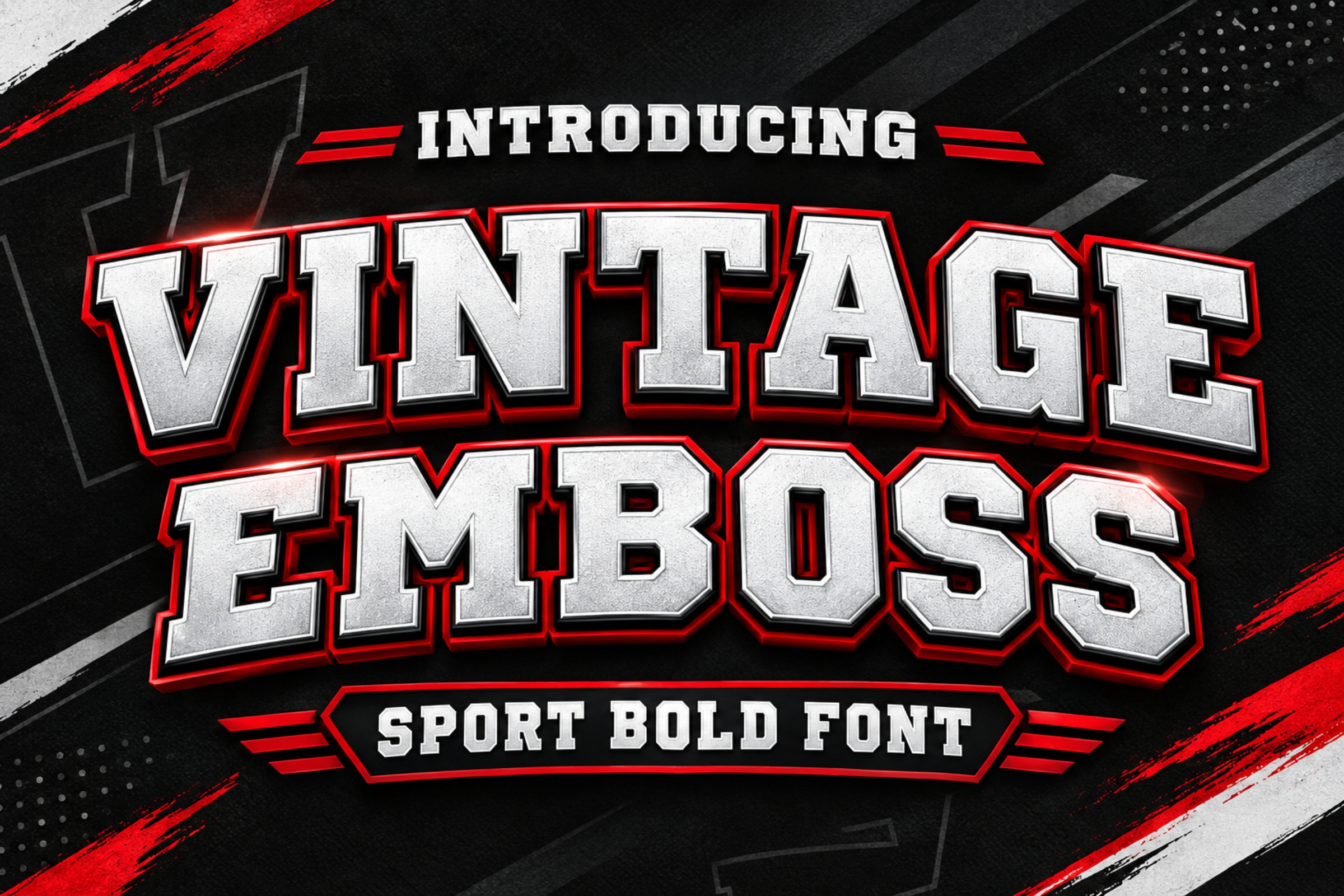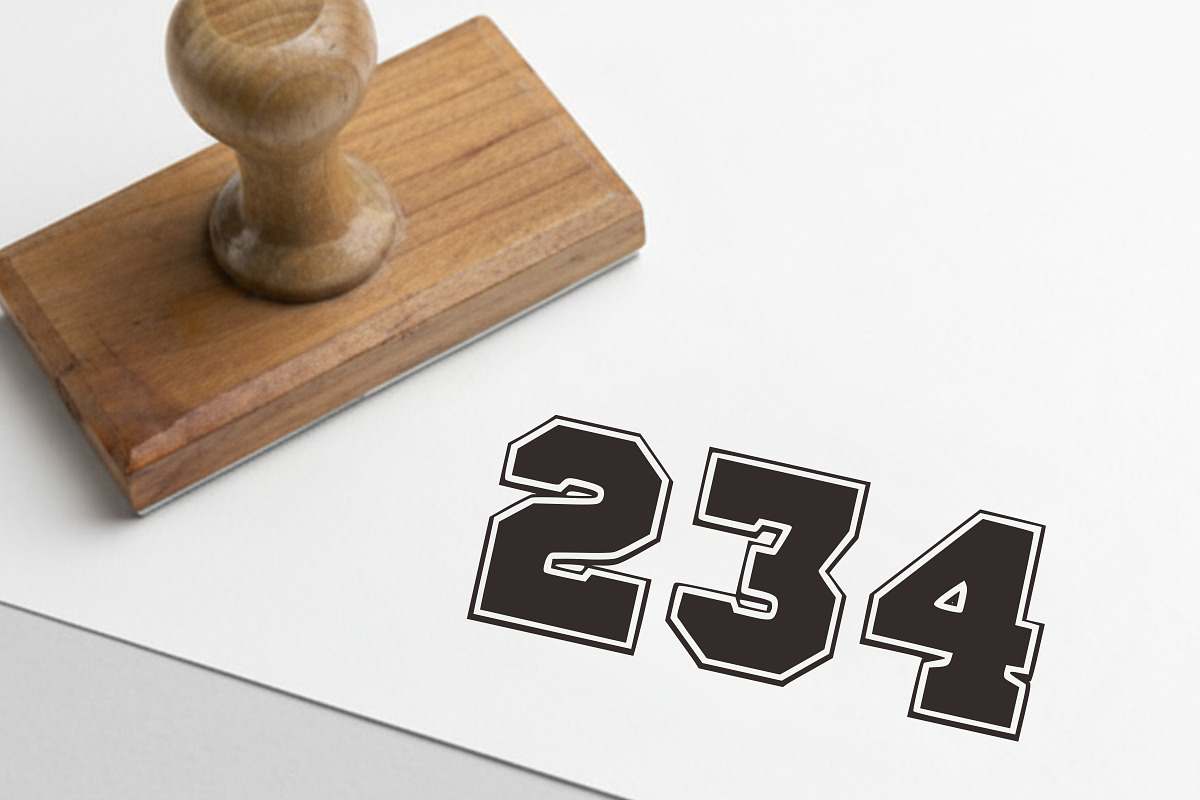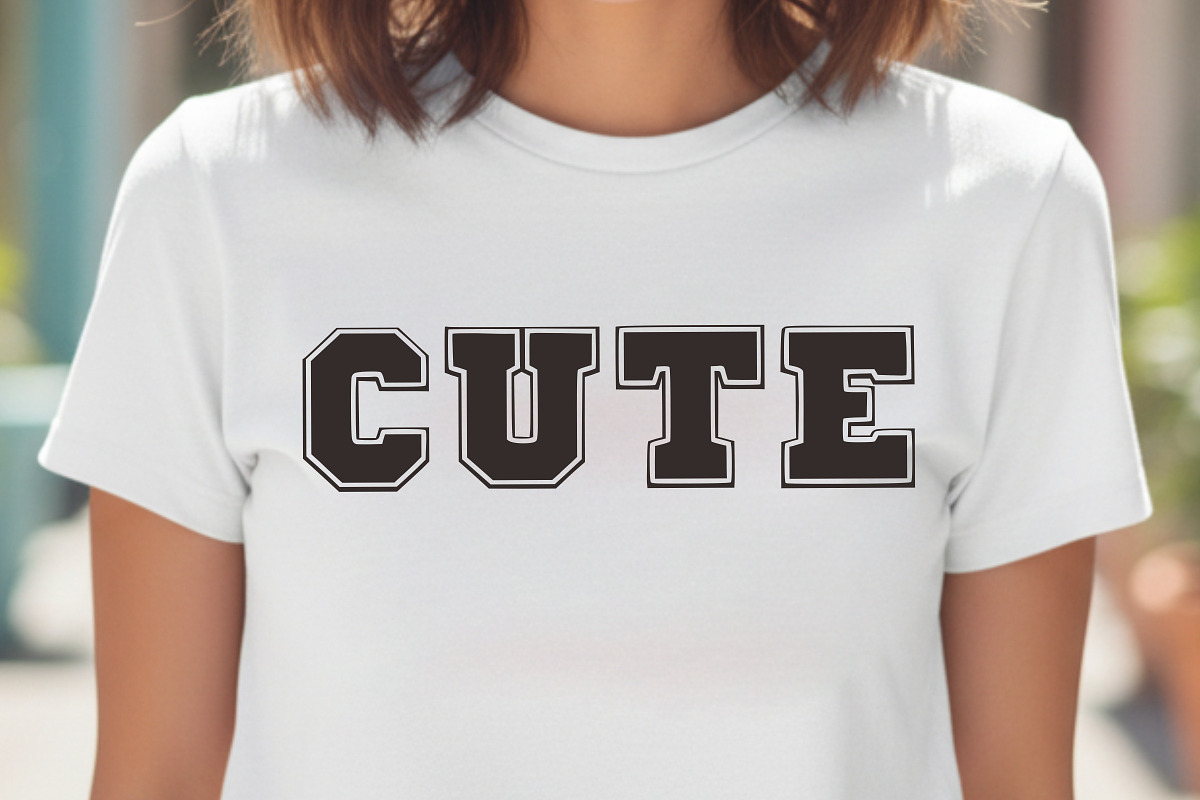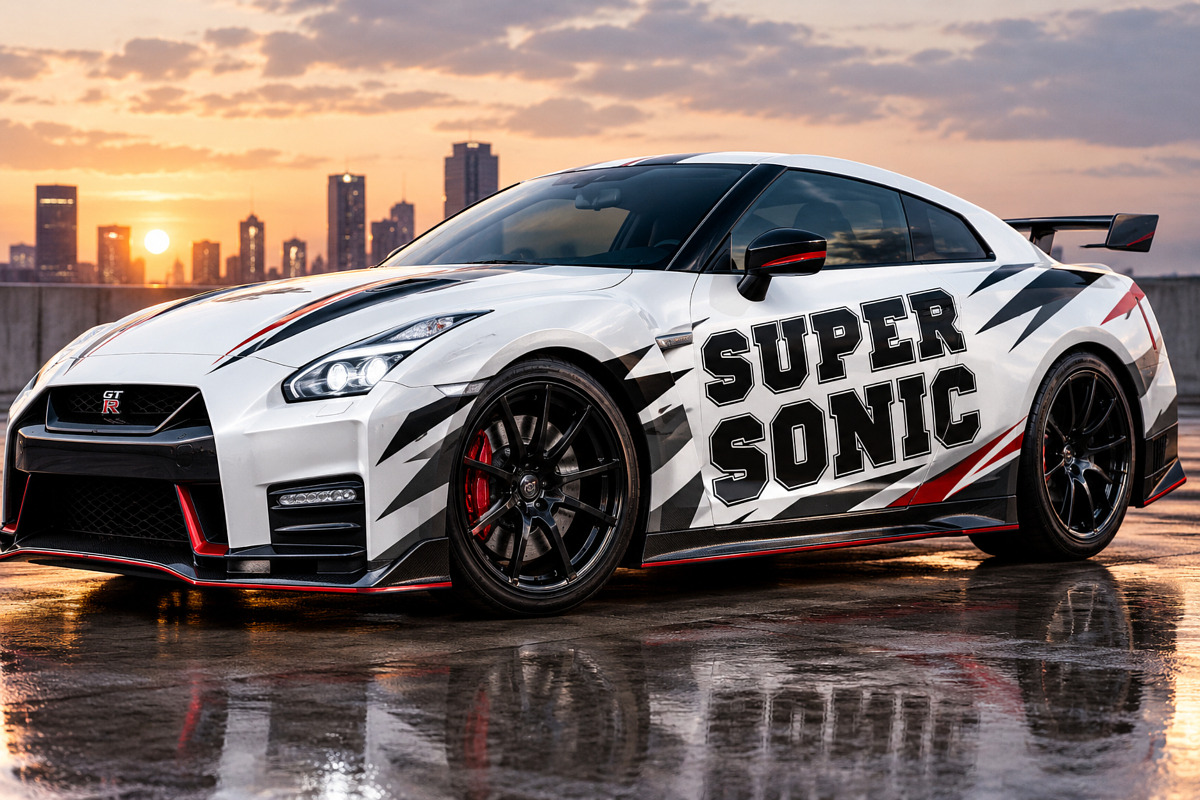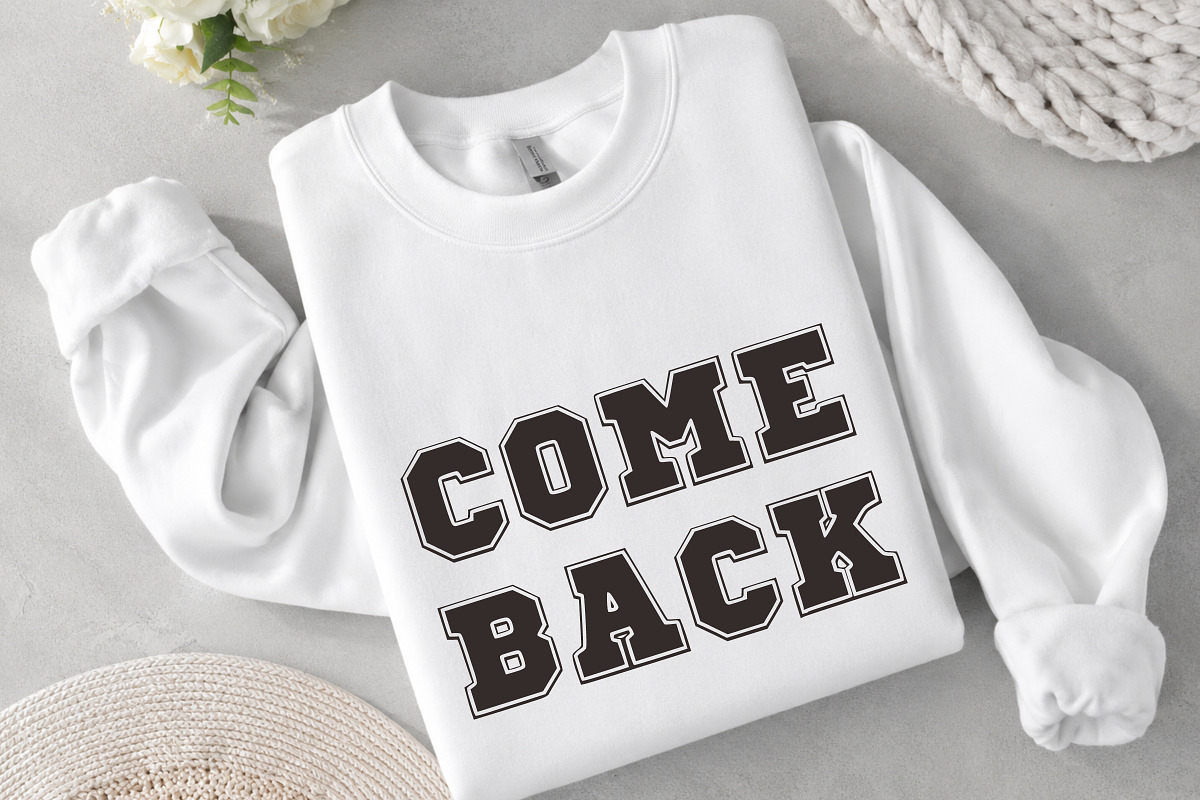
Vintage Emboss – Bold Retro Font
Bring a classic athletic feel to your designs with Vintage Emboss, a bold and powerful display font featuring a strong vintage varsity style.
Designed to stand out, Vintage Emboss works beautifully for sports branding, team apparel, t-shirts, hoodies, caps, posters, logos, stickers, badges, labels, signage, and other creative projects.
Its bold letterforms create a strong visual presence while maintaining a timeless retro character, making it suitable for both modern and vintage-inspired designs.
Sports & athletic designs
Varsity and collegiate projects
T-shirts & apparel
Logos & branding
Posters & flyers
Badges & emblems
Team merchandise
Stickers & labels
Cricut & cutting projects
Sublimation designs
Print-on-demand products